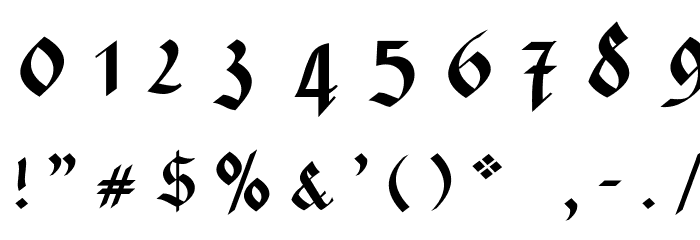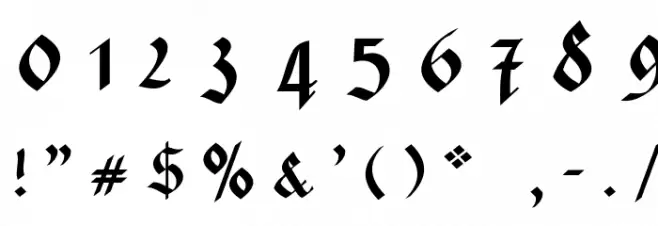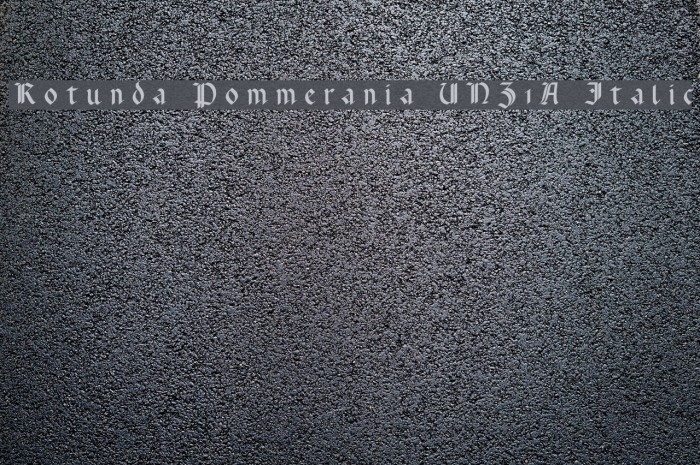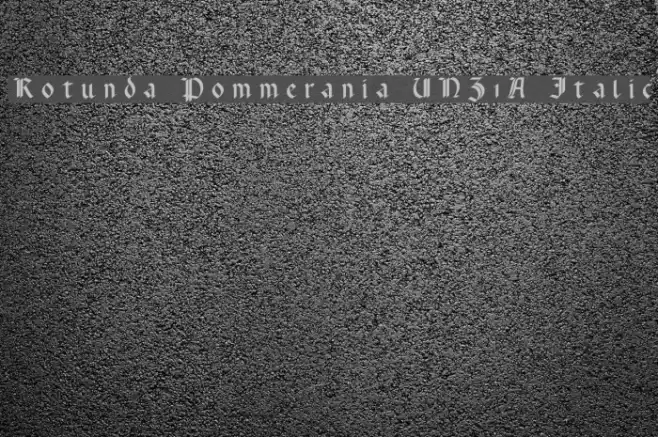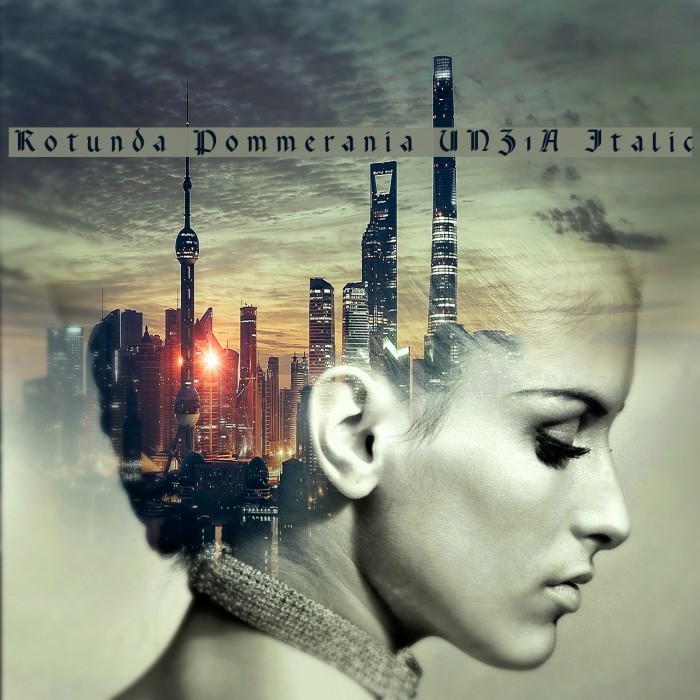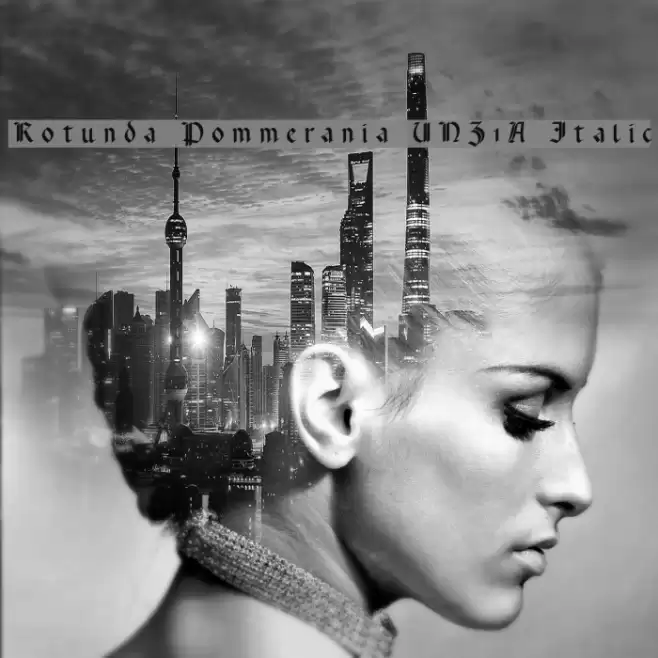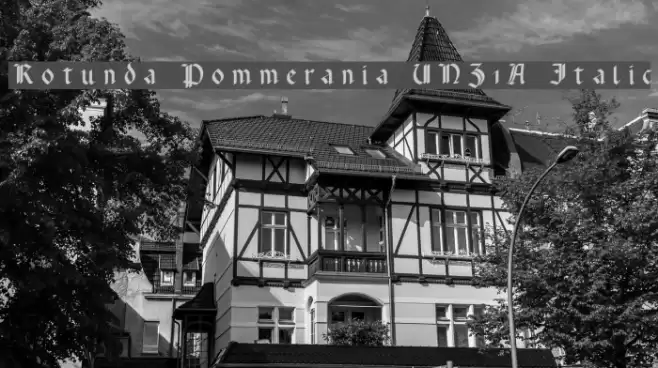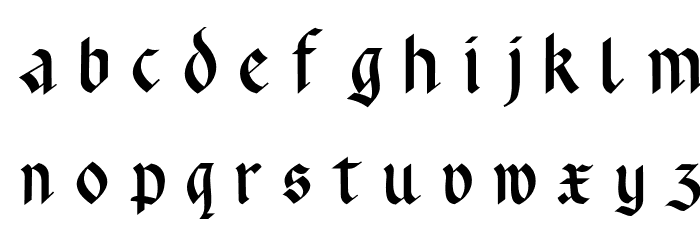
Rotunda Pommerania UNZ1A Italic Font
This font exudes a historical and traditional essence, characterized by its intricate and ornate design. The letters are crafted with sharp, angular strokes and a distinct Gothic influence, reminiscent of medieval script. The uppercase letters are bold and commanding, while the lowercase letters maintain a consistent style with a slightly more delicate touch. The numerals follow the same aesthetic, ensuring a cohesive look across all characters. The special characters are equally detailed, adding to the font's overall decorative appeal. This font is perfect for projects that require a touch of elegance and historical flair.
A Gothic-inspired font with intricate, angular strokes and a medieval essence.
• Proposed Projects: Ideal for historical documents, vintage posters, book covers, and branding that requires a classic touch.
• Use Case: Headlines, Logos, Decorative text